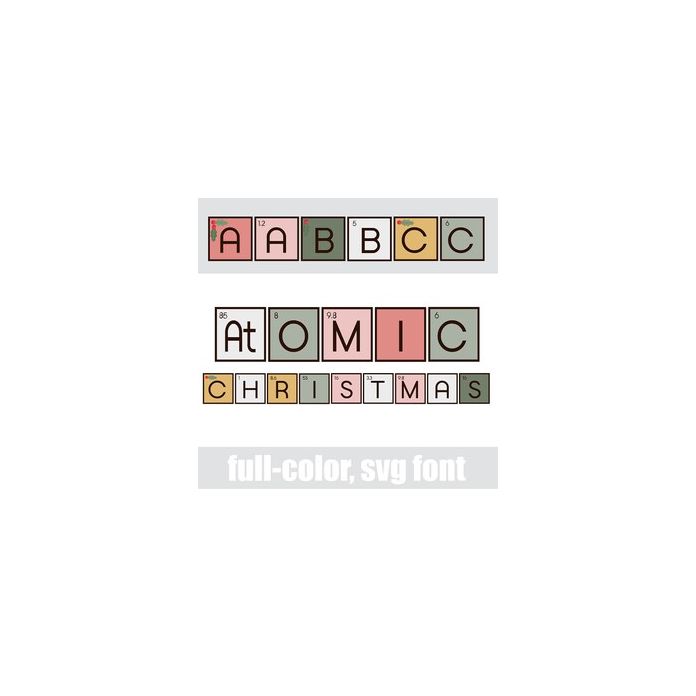
This full-color font features the periodical table of elements in a Christmas color palette. The lowercase has the atomic weights while the uppercase does not. There are many ligatures that represent real elements (i.e. Li, as seen in "Ligature"). There is an alt case w/ additional colors you can access through your system or Silhouette's glyph map.